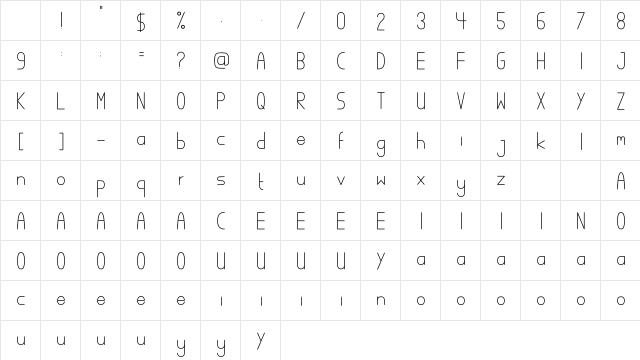
Complete Scenery Regular glyph index. Displaying only characters natively supported by Scenery Regular font.
Scenery is a composed and adaptable typeface that performs quietly and consistently across a wide range of design contexts.